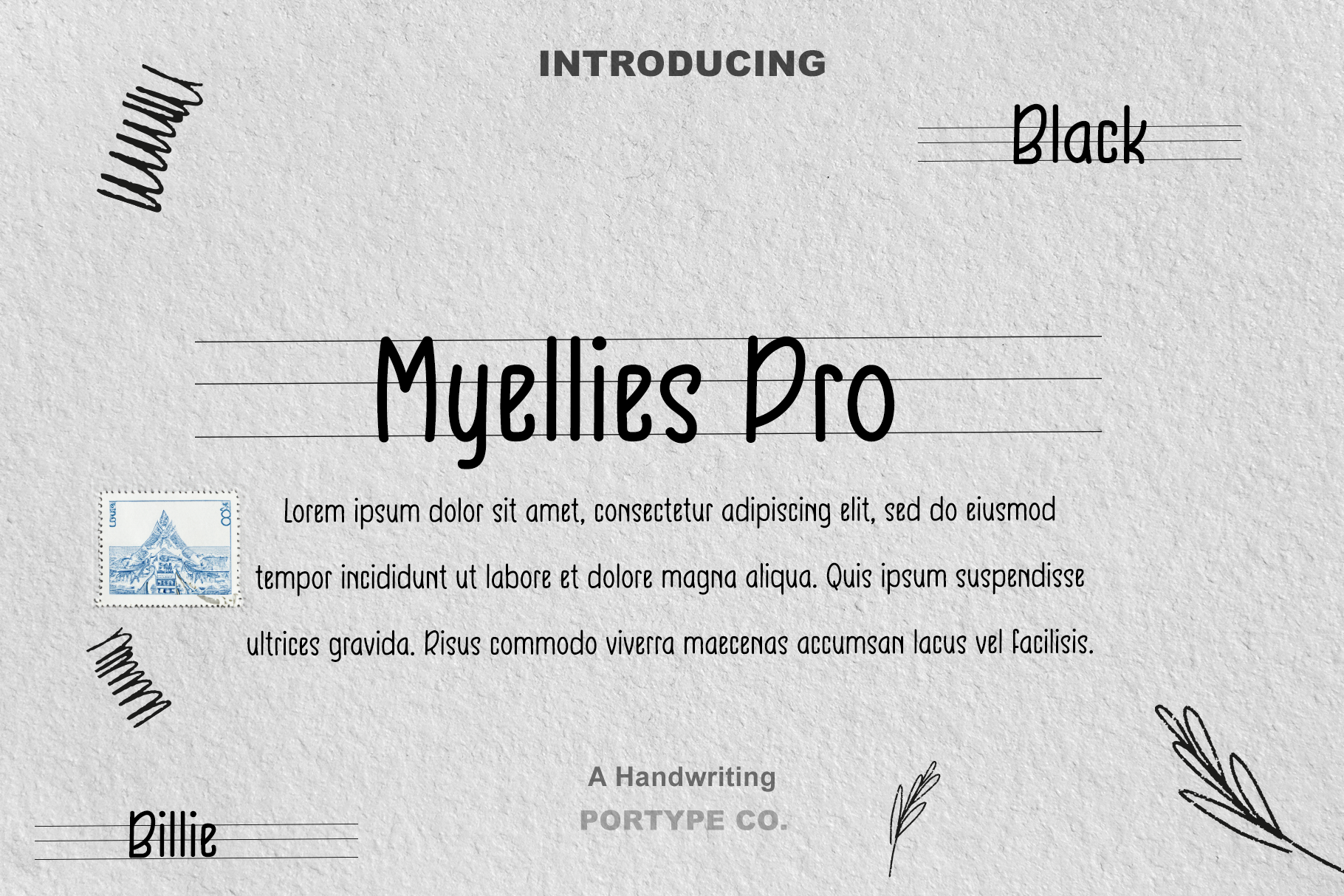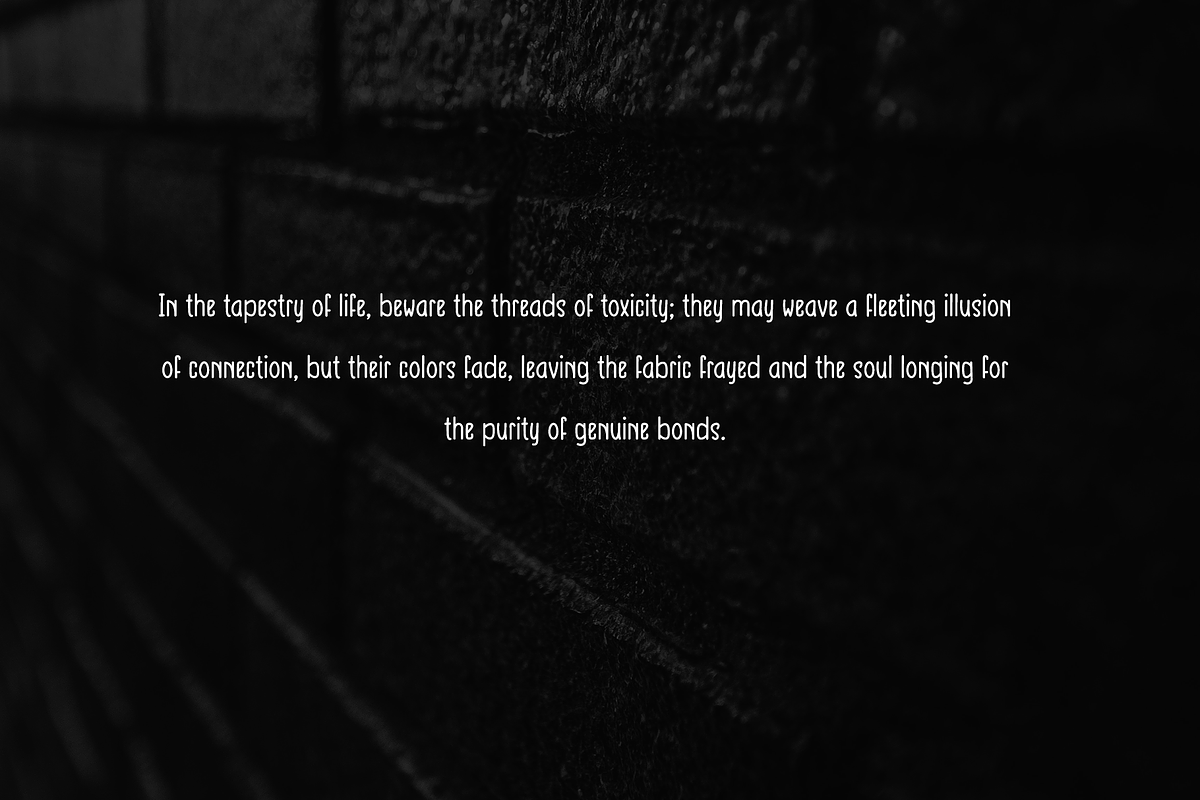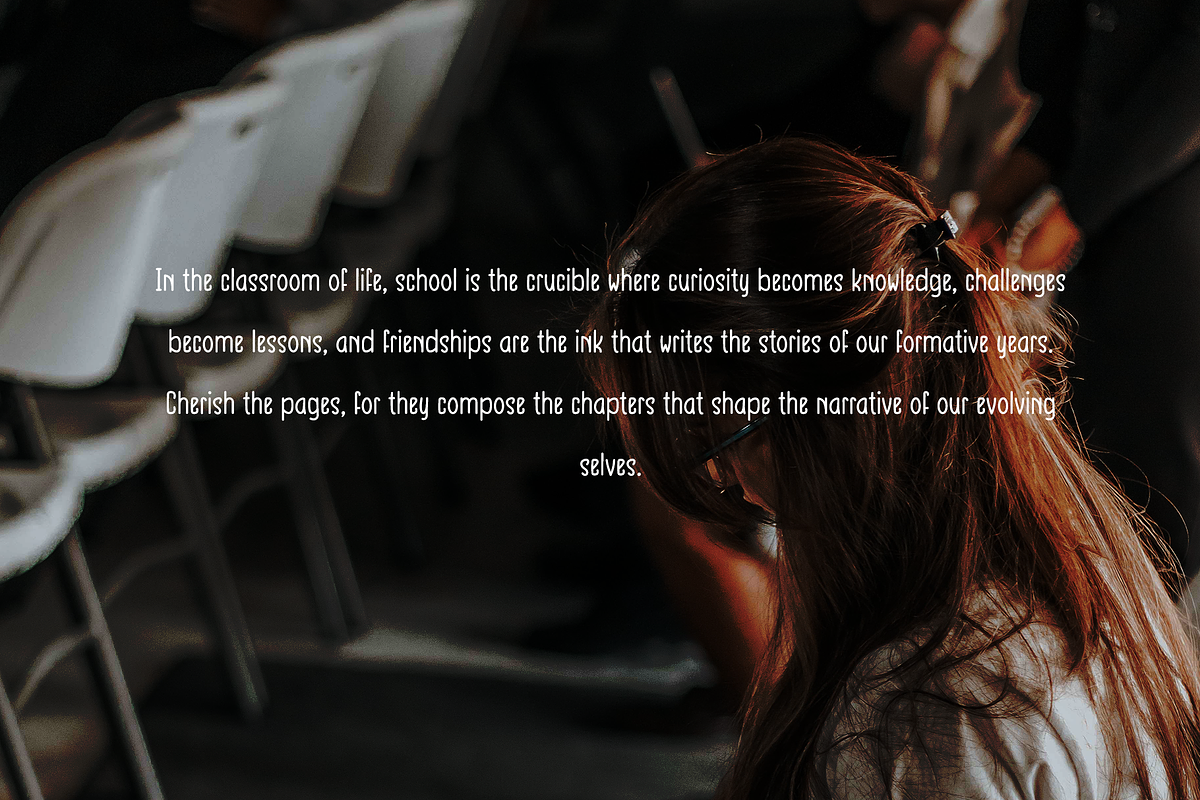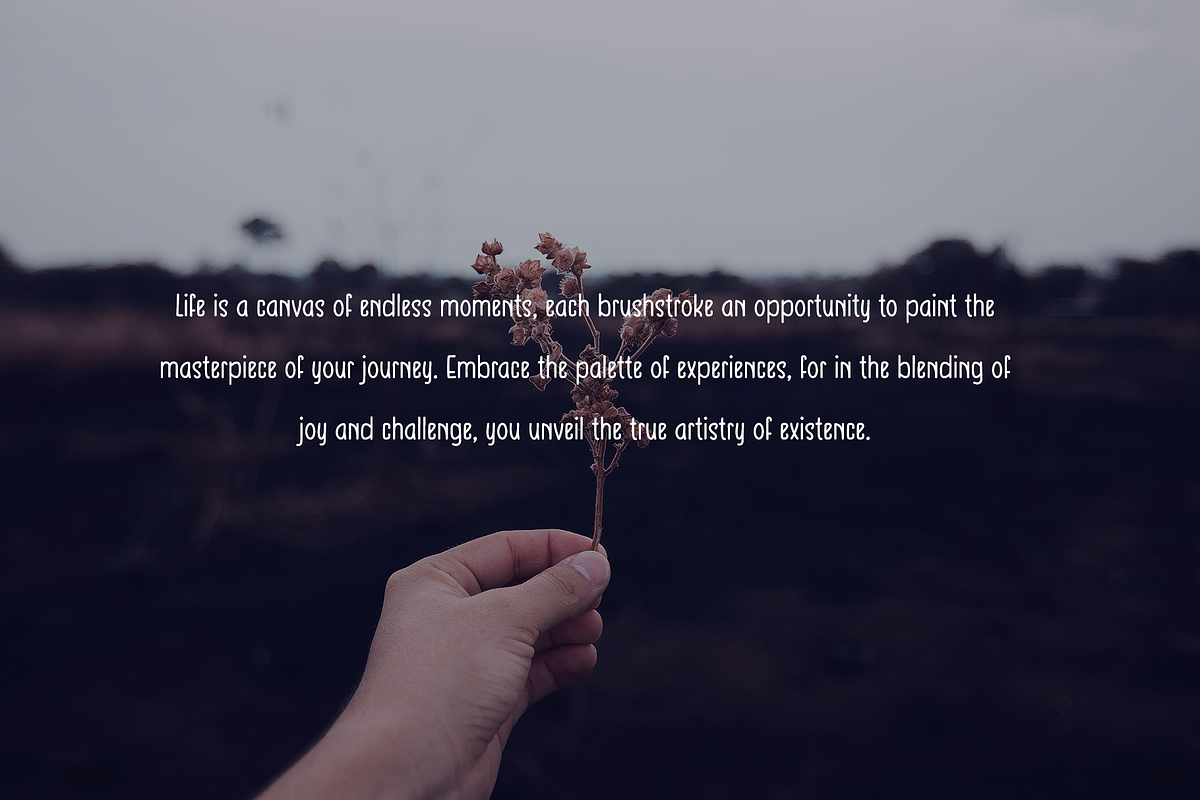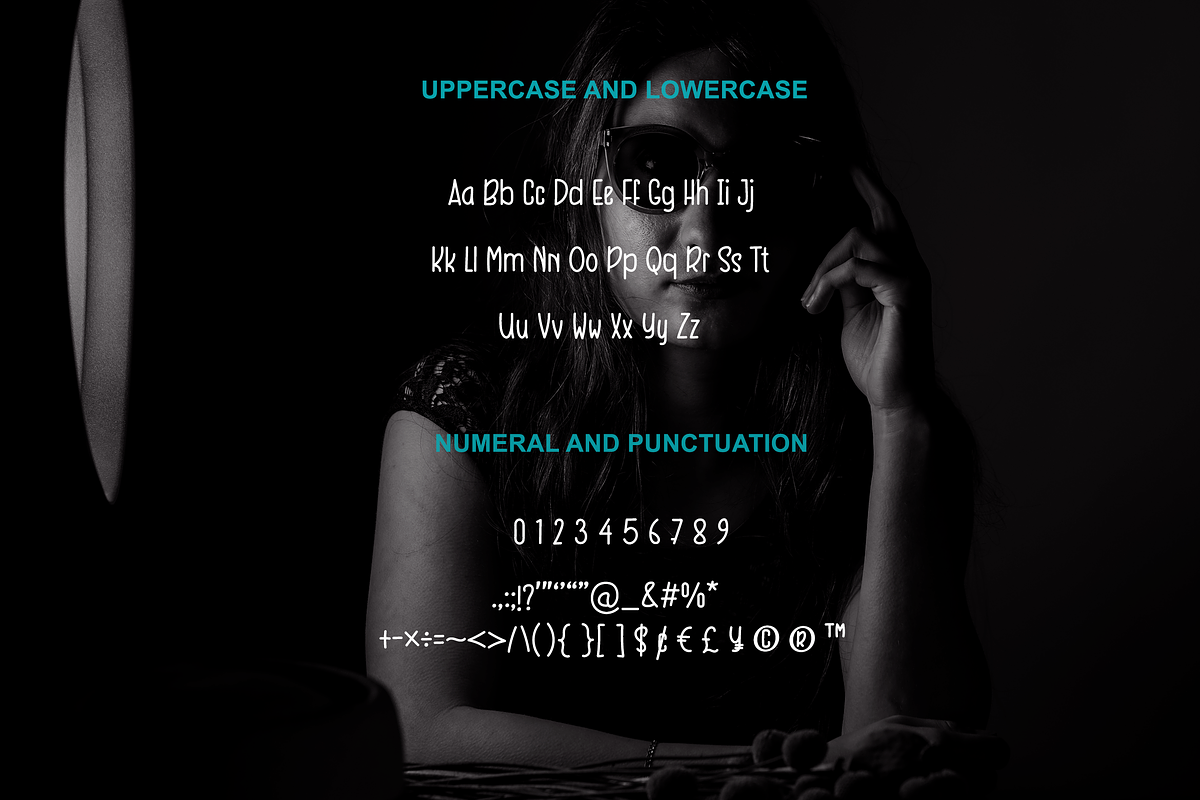
Myellies Pro - Handwriting Font
Myellies Pro is a sophisticated handwriting font that seamlessly combines elegance with a touch of whimsy. The letters exhibit a perfect balance between simplicity and intricate details, making it both readable and charming. Myellies Pro carries an air of timeless grace, reminiscent of classic penmanship, while infusing a modern flair that appeals to contemporary design sensibilities.
The consistency in letter spacing and well-defined characters contribute to the font's legibility, making it suitable for a variety of creative projects. Whether used for invitations, branding, or personal correspondence, Myellies Pro adds a touch of sophistication, making each word a visual treat. This font is a testament to the artistry of handwriting, offering a digital expression of the warmth and character found in pen-to-paper communication.